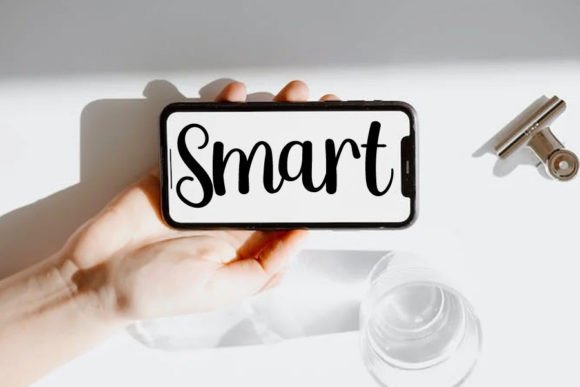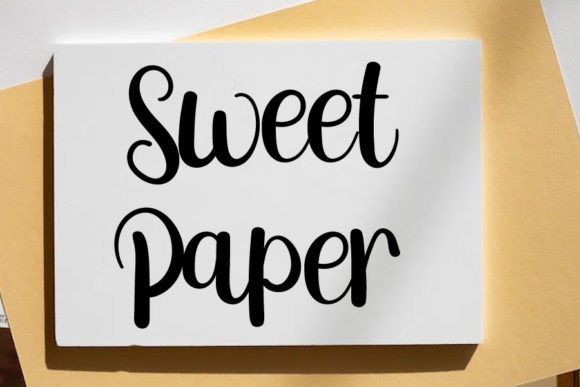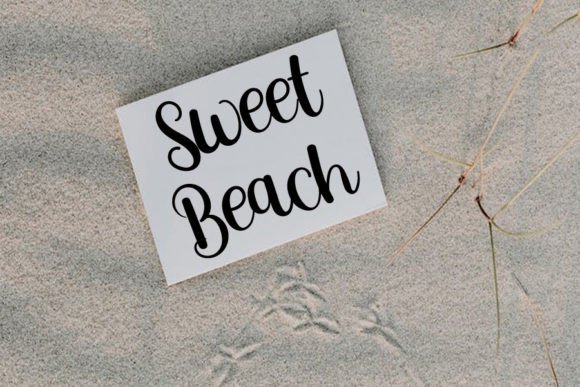
An Honest Review of Focus Font
Focus Font has quickly become a staple in my design toolkit, and for good reason. Here are some things I love about it:
- ✨ Fresh and neat handwritten style that’s perfect for a wide range of projects
- 💫 Works beautifully for both digital and print designs
- 🎨 Highly versatile, making it suitable for crafts, presentations, and more
Of course, no font is perfect, and Focus Font has a few minor quirks:
- 🤔 Limited availability of stylistic alternates, which might be a drawback for some users
- ⚠️ Not ideal for body text, as it’s best suited for headings and titles
The Story Behind Focus Font
Focus Font was designed with the goal of creating a fresh and neat handwritten font that’s perfect for a wide range of projects. The designer wanted to create a font that’s both elegant and approachable, making it suitable for both digital and print designs. With its clean lines and simple style, Focus Font is sure to become a favorite among designers and crafters alike.
| Font Name | Focus Font |
| Author | ABBAsalam |
| What type of projects is Focus Font best suited for? | Focus Font is perfect for a wide range of projects, including crafts, digital design, presentations, and making greeting cards. |